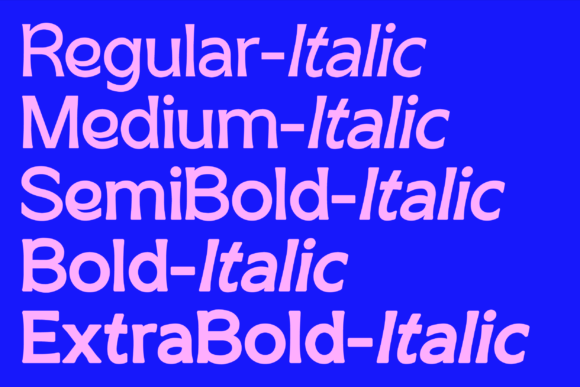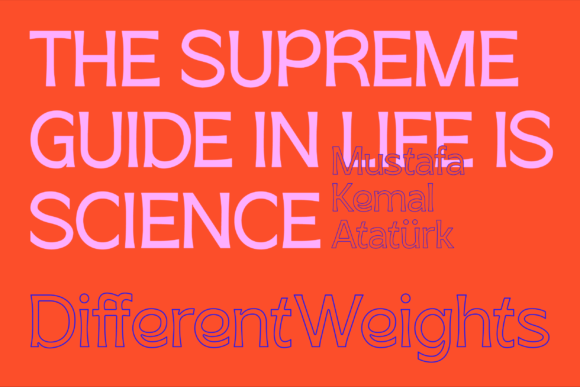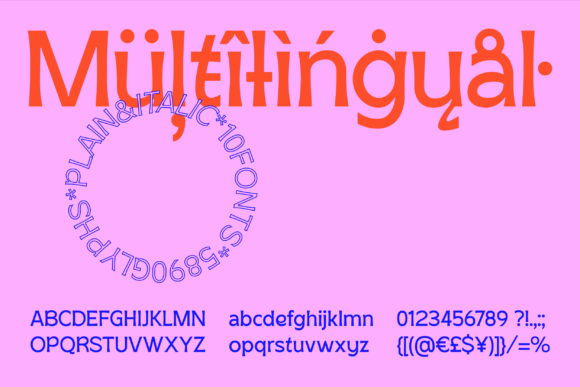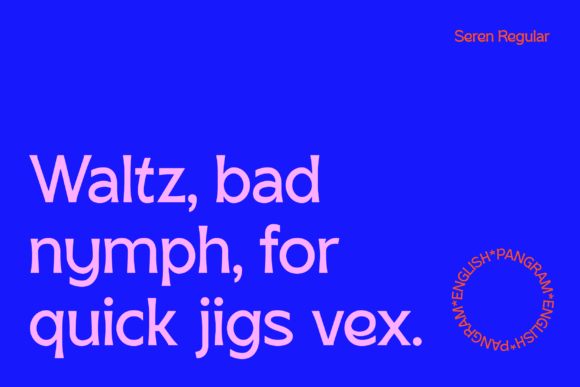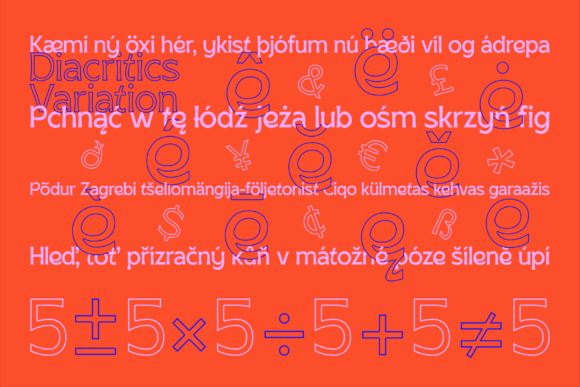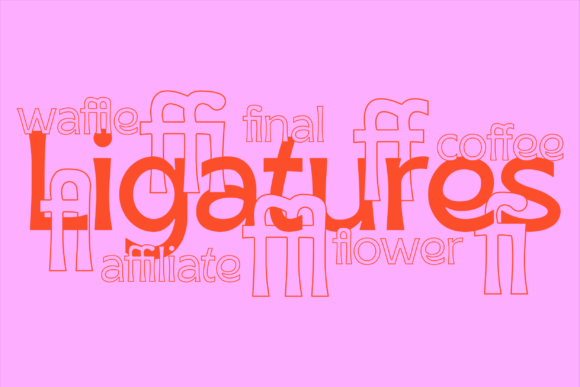
Introduction to SK Seren Font
Have you ever been working on a creative project, pouring your heart and soul into it, only to realize that the right font is missing to bring it all together? That’s where the SK Seren Font comes in – a simple, adaptable, and versatile sans serif font that can elevate any creation.
As designers, we know that the right font can make all the difference in conveying our message and making a lasting impression. That’s why having a high-quality font like the SK Seren Font in your library is invaluable. Not only is it a free download, but it’s also incredibly versatile, making it a design resource that’s hard to resist.
With its transparent background and clean lines, the SK Seren Font is the perfect addition to any creative project. Whether you’re designing a logo, a website, or a social media campaign, this font has the potential to take your design to the next level.
Key Features of SK Seren Font
- High-quality design font ideal for creative projects, including digital and print media.
- Designed to be scalable, making it suitable for use in a variety of sizes, from small to large.
Honest Review: SK Seren Font
I recently stumbled upon the SK Seren Font while searching for a high quality font to enhance my creative project. I must say, I was impressed by its elegant and modern design.
- ✨ Unique Design: The SK Seren Font has a distinctive and refined look that sets it apart from other fonts. Its sleek lines and subtle curves make it perfect for a variety of creative projects.
- ✨ Transparent Background: The font has a transparent background, which allows for seamless integration with other design elements.
While the SK Seren Font is an excellent addition to any design collection, there are a few limitations to consider:
- ⚠️ Limited Character Set: The font only includes a basic set of characters, which may not be sufficient for more complex projects.
- ⚠️ Not Suitable for Headings: The font’s elegance may make it less suitable for headings and titles, where a more robust font is often preferred.
Overall, I’m impressed with the SK Seren Font, and I would highly recommend it to anyone looking for a high quality, free design resource. While it has some limitations, its unique design and transparent background make it a valuable addition to any design collection.
SK Seren Font
For a high-quality design, use the SK Seren Font in combination with a transparent background to create a clean and modern look. Experiment with different font sizes and styles to find the perfect fit for your creative project.
The SK Seren Font is a versatile design resource that can be used for a variety of creative projects, including logos, brochures, and social media graphics. It’s also available for free download, making it an ideal choice for designers on a budget.
Alternatives to SK Seren Font
Lato is a modern sans-serif font that is perfect for high-quality creative projects requiring a clean and elegant design. It is available for free download and can be used for both personal and commercial projects. Lato is ideal for use on websites, apps, and other digital design resources.
Compared to SK Seren Font, Lato has a more minimalist design and a wider range of weights and styles. It is also highly customizable and can be easily paired with other fonts to create a unique design aesthetic.
Montserrat is a geometric sans-serif font that is well-suited for creative projects requiring a modern and urban design. It is available for free download and can be used for both personal and commercial projects. Montserrat is ideal for use on websites, brochures, and other print design resources.
Compared to SK Seren Font, Montserrat has a more dramatic and edgy design, making it perfect for projects that require a bold and eye-catching font.
Can I use the SK Seren Font with a transparent background?
Yes, the SK Seren Font is designed to work well with transparent backgrounds. The font file includes a transparent background, which allows you to use it with any color or image behind it. Simply use the font in your design software, and the transparent background will be automatically applied.